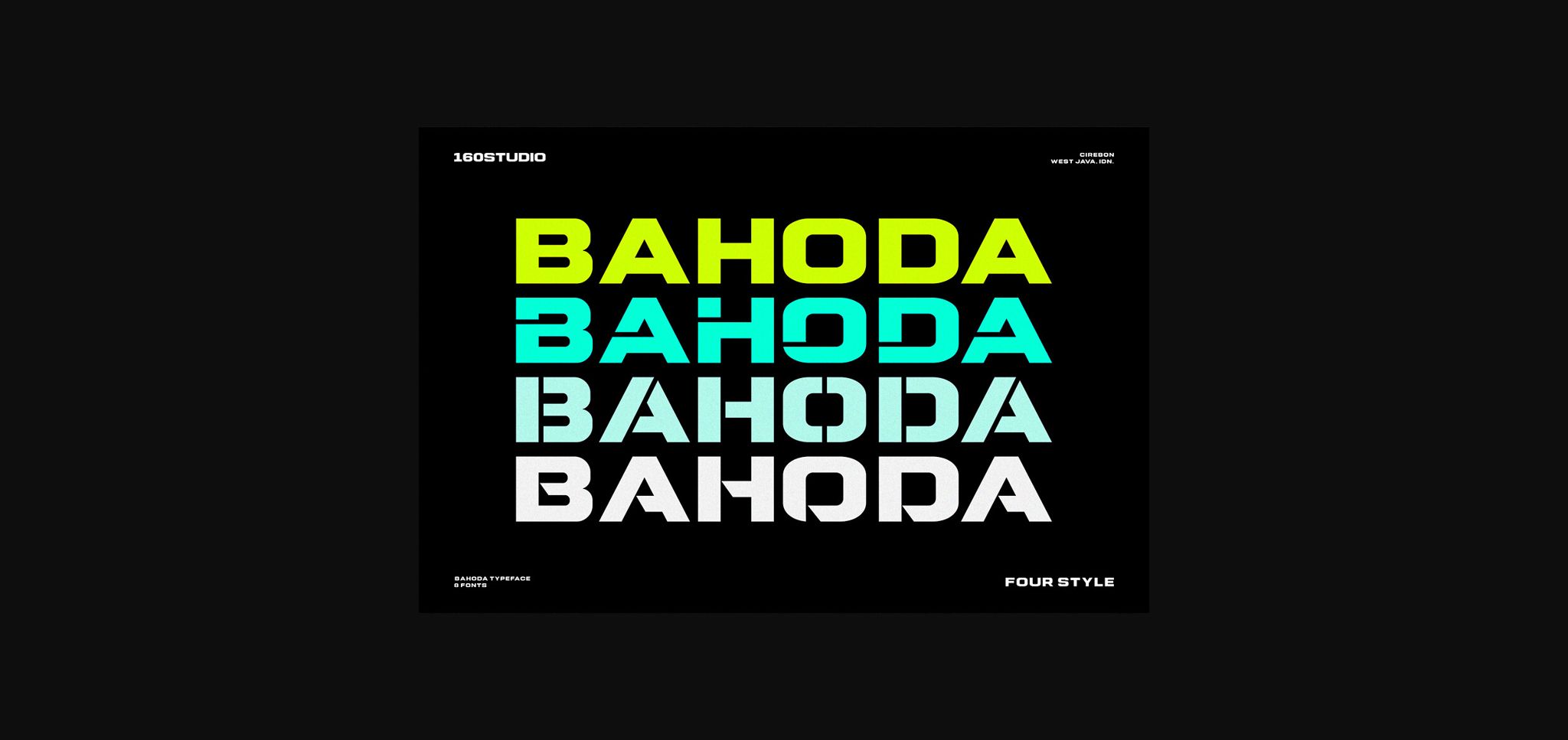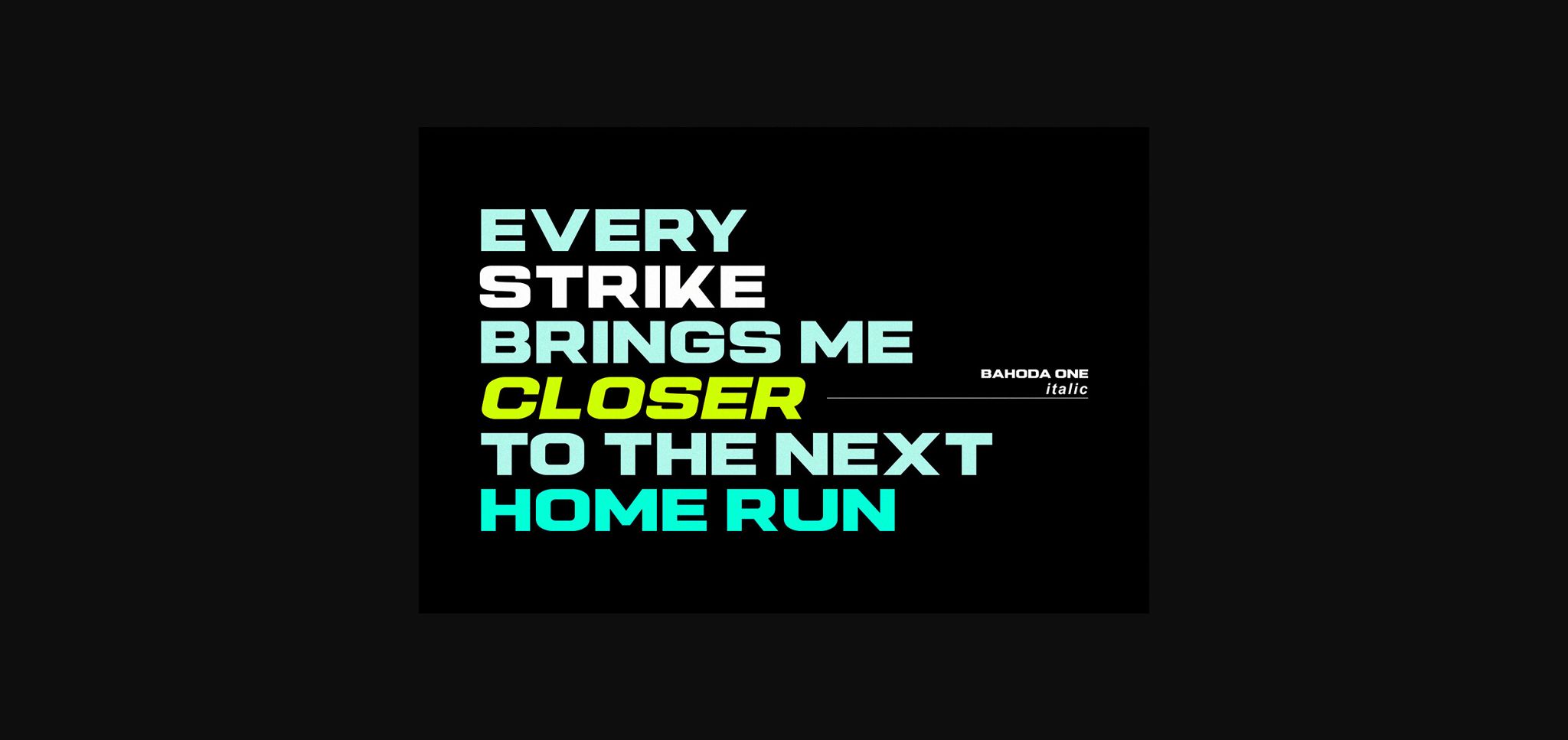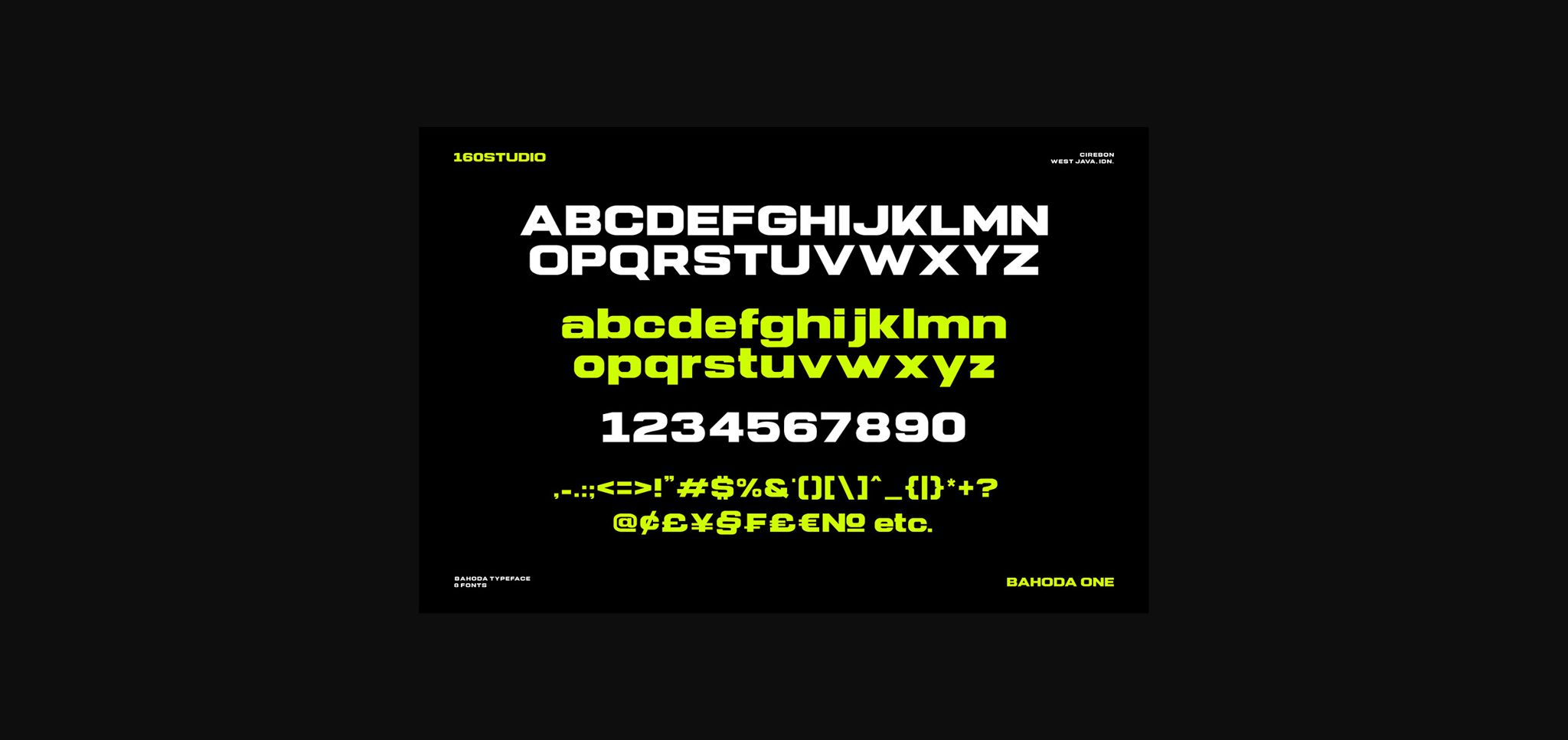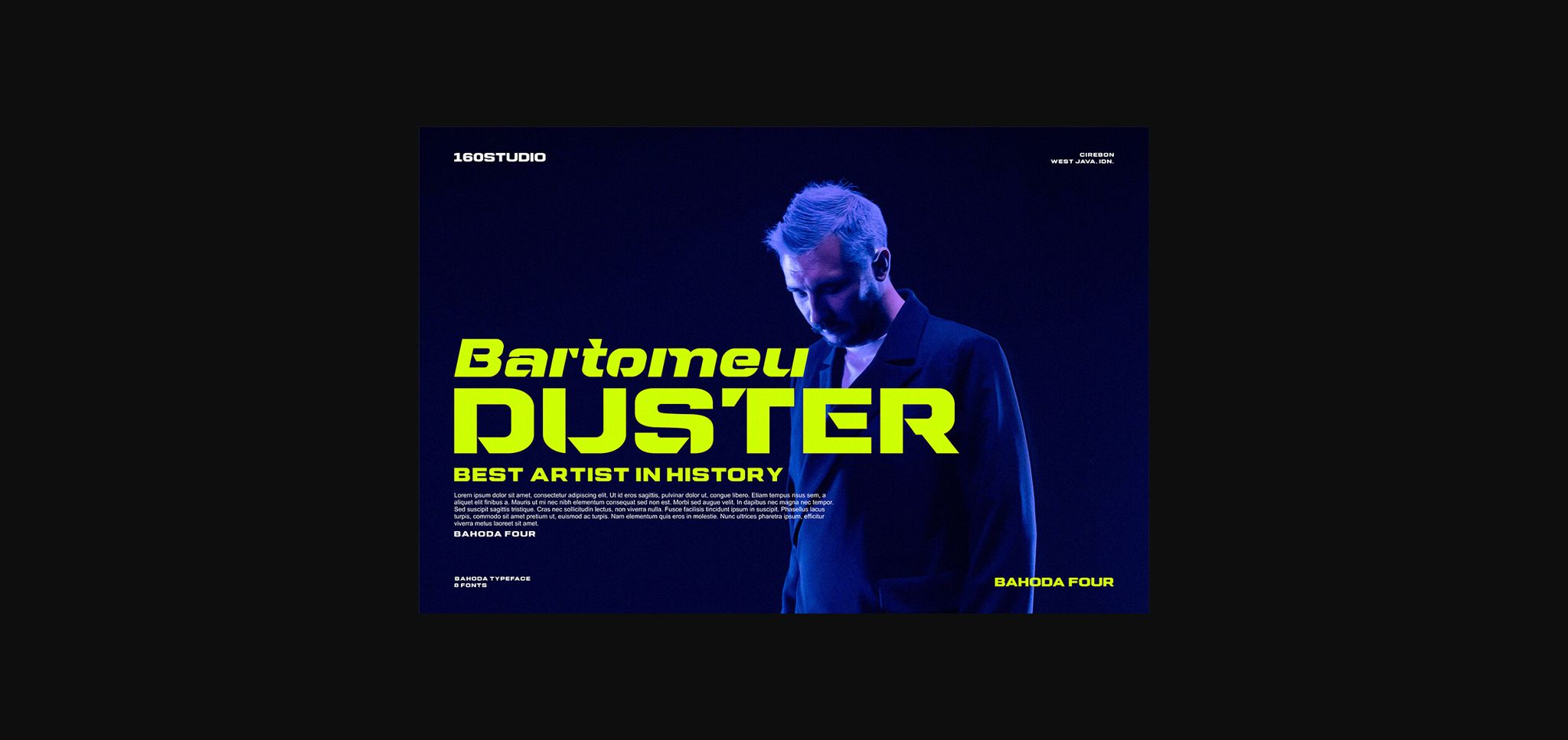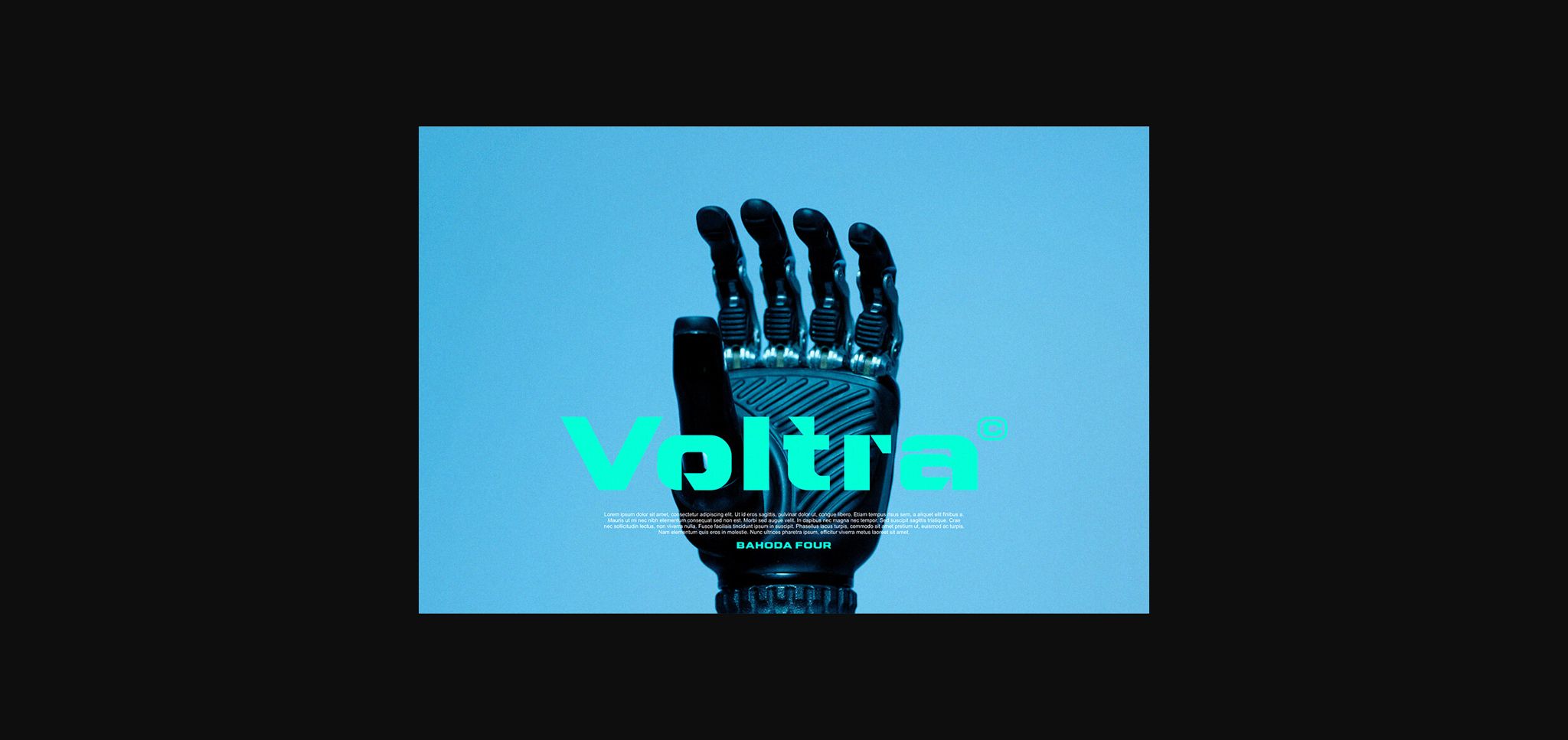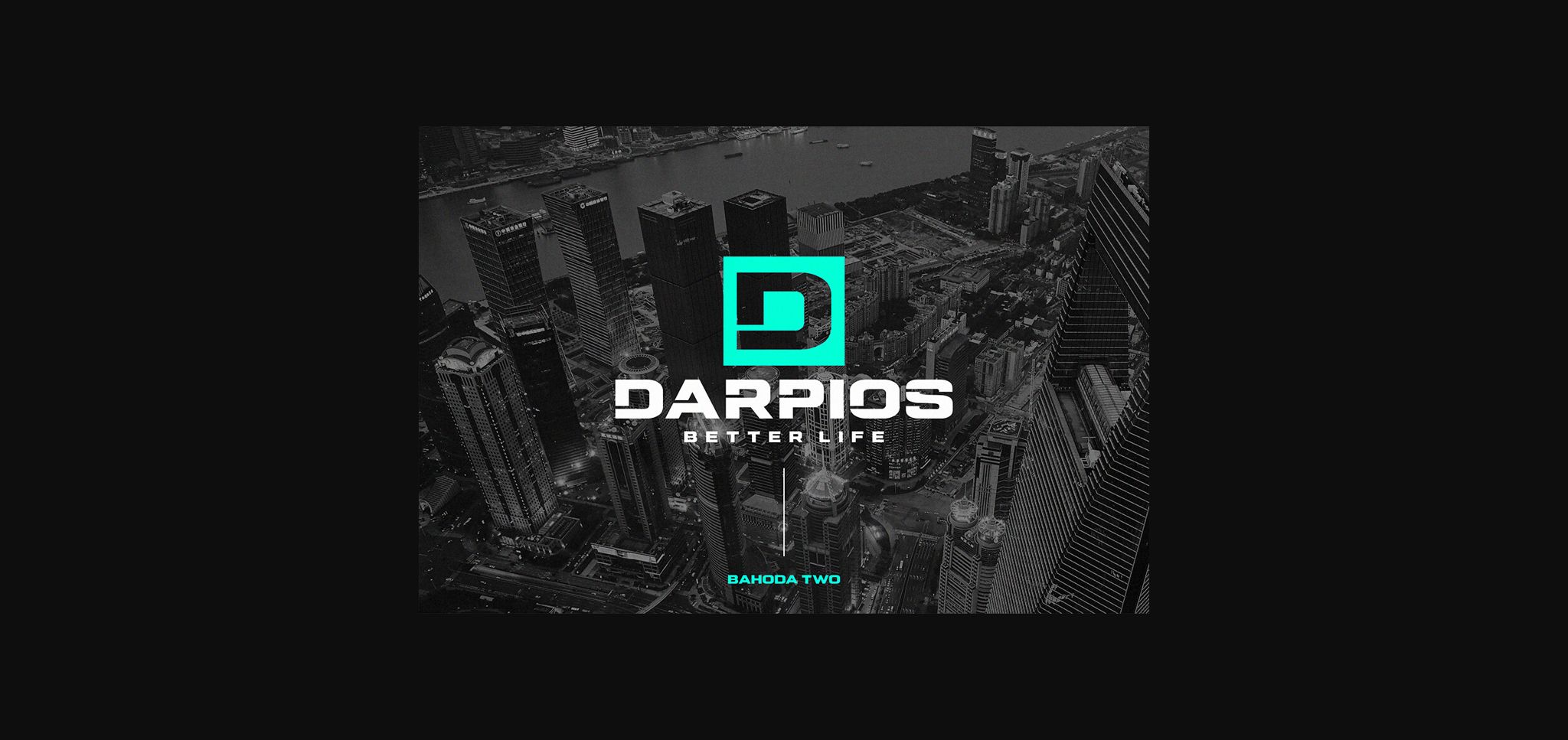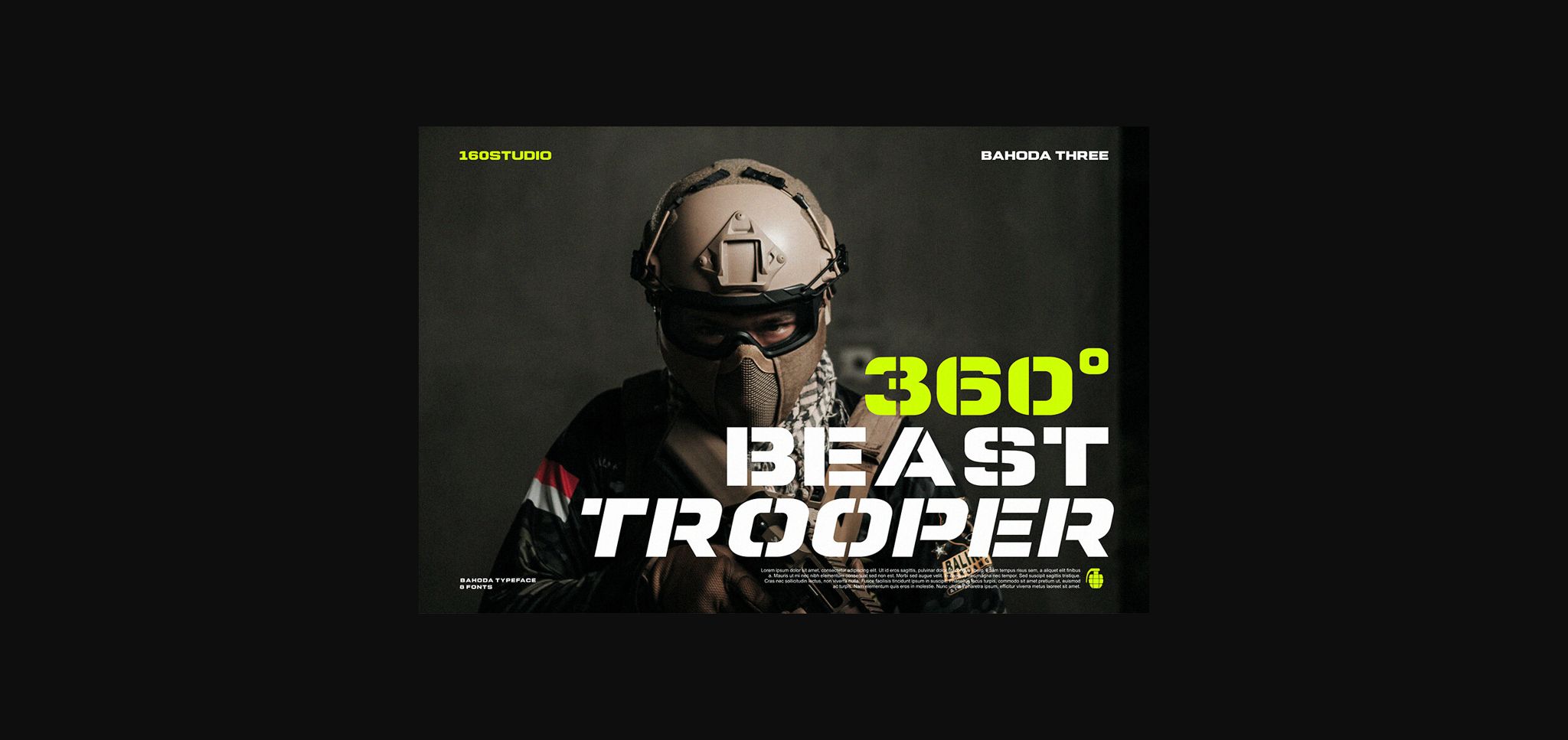
About Bahoda Font
Bahoda is a sans serif font that comes in 4 styles.
Bahoda font has bold and high contrast. This font looks very modern when paired with contrasting design colors.
This font is impressive and features a clean and elegant font, professionally shaped, and as a result, it will easily match a variety of creations that require a different touch.
This typeface is perfect for powerful logos, branding, promotions, book covers, magazine layouts, or simply as a stylish text overlay onto any background image.
Bahoda font has bold and high contrast. This font looks very modern when paired with contrasting design colors.
This font is impressive and features a clean and elegant font, professionally shaped, and as a result, it will easily match a variety of creations that require a different touch.
This typeface is perfect for powerful logos, branding, promotions, book covers, magazine layouts, or simply as a stylish text overlay onto any background image.